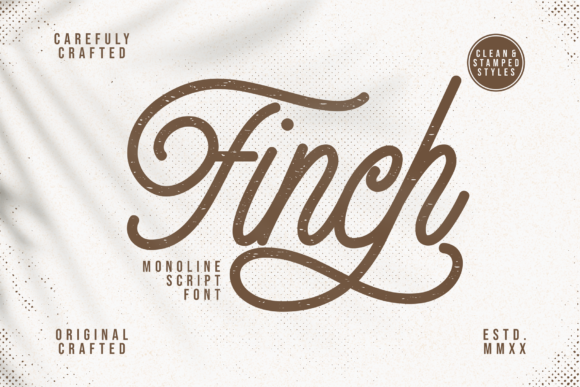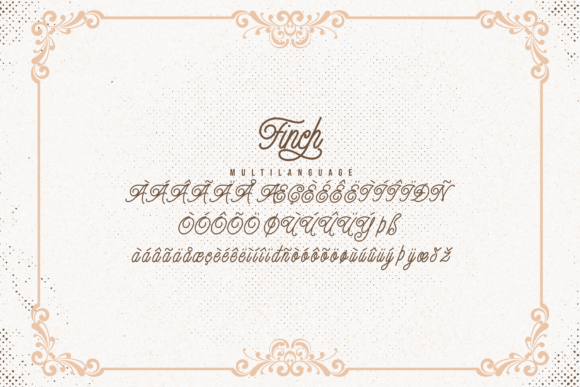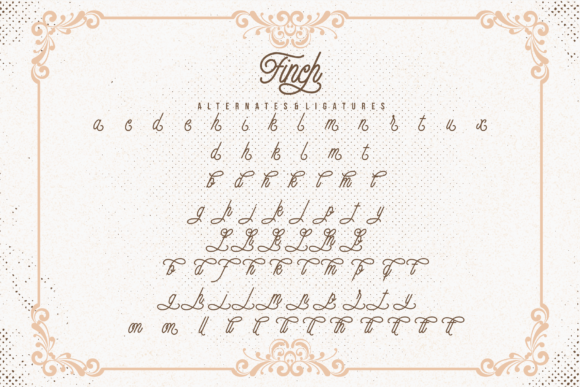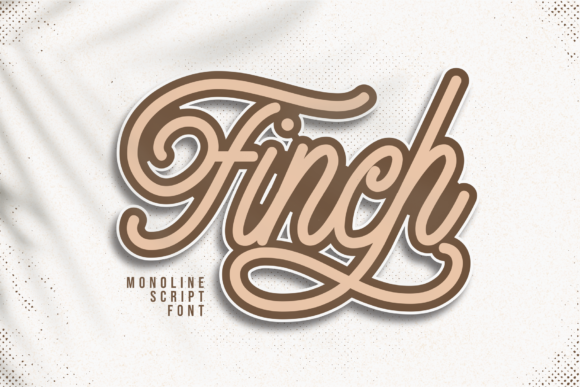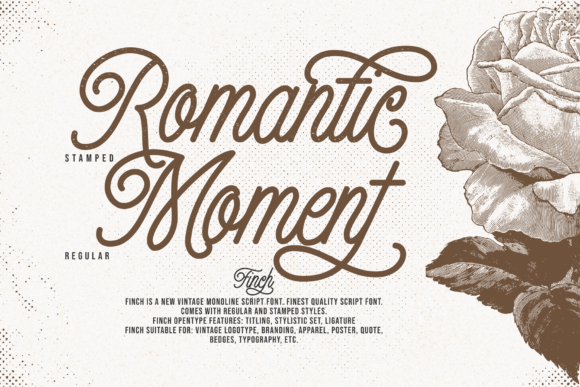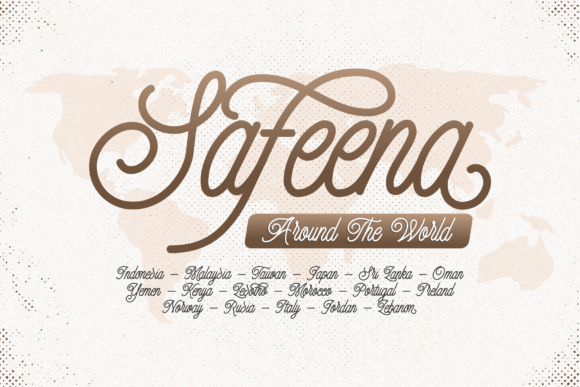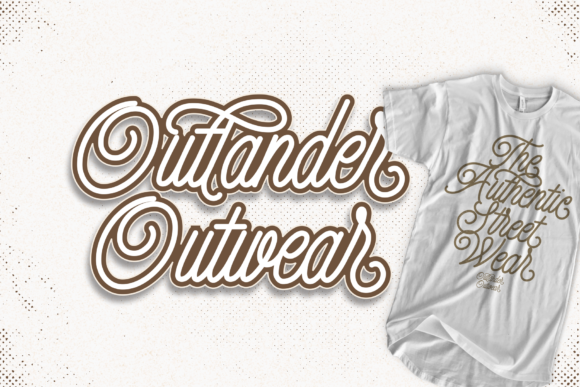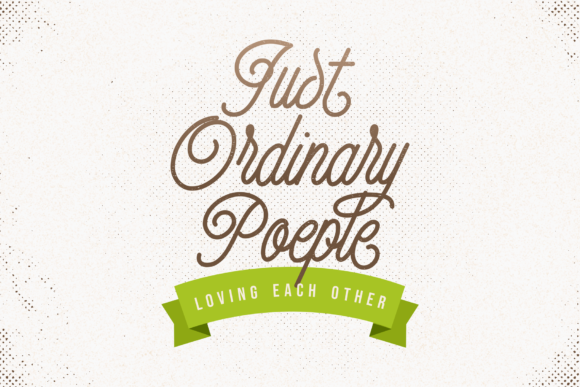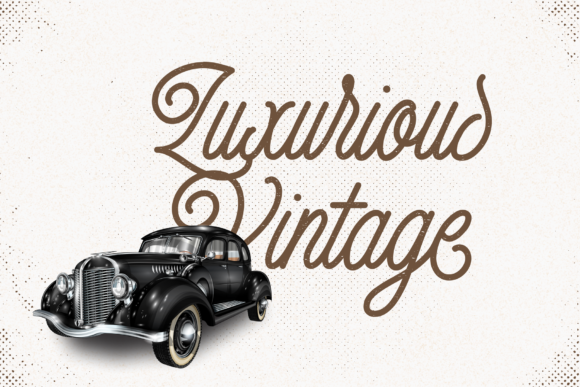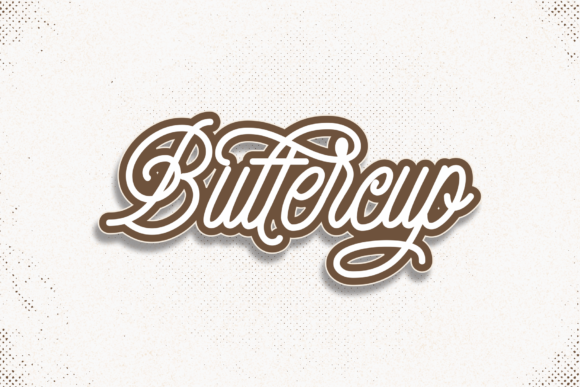
Finch Font
About Finch Font
Finch is a great monoline script font with 2 styles: clean and stamped. It will elevate a wide range of design projects to the highest level, be it branding, headings, wedding designs, invitations, signatures, logos, labels, and much more!